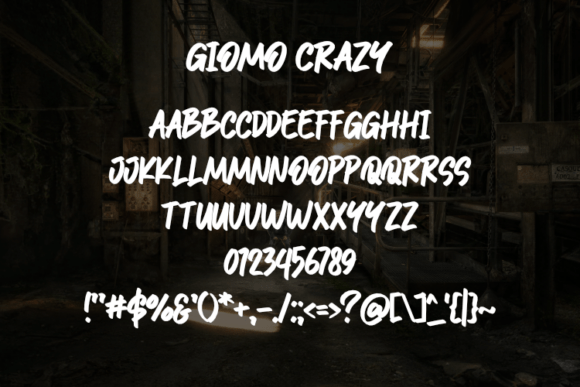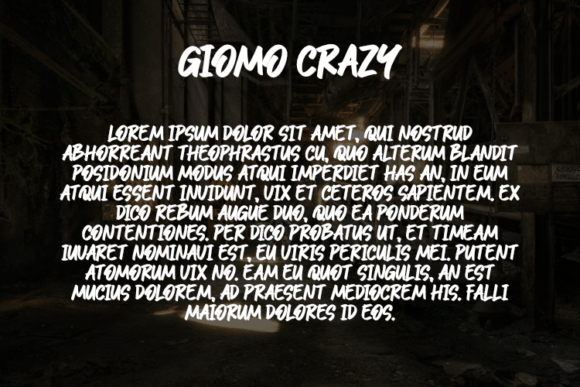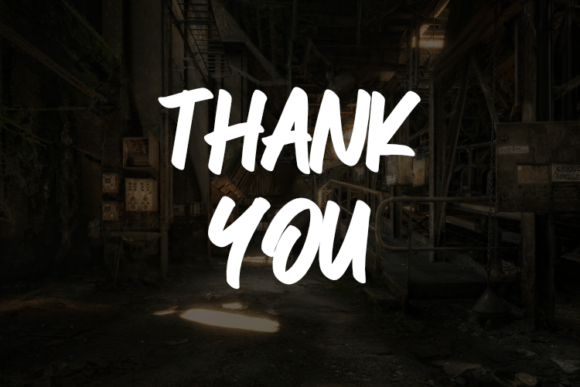
Unleash Your Creative Genius with GIOMO CRAZY Font
Are you a fashion-forward designer looking for a font that adds an edge to your designs? Look no further than the GIOMO CRAZY font, a versatile and quirky font created specifically with the designer in mind. This exciting font is perfect for apparel design, including t-shirts, sweatshirts, caps, and accessories, and is sure to give your designs a dynamic personality that captivates audiences.
The Perfect Font for Fashion-Forward Designers
The GIOMO CRAZY font is designed to help you unleash your creative genius and take your designs to the next level. Its unique and quirky charm makes it perfect for designers who want to add a touch of personality to their work. Whether you’re creating designs for apparel, accessories, or any other project, this font is sure to provide the perfect blend of style and creativity.
Perfect for Apparel Design
The GIOMO CRAZY font is particularly well-suited for apparel design. Its bold and dynamic personality makes it perfect for t-shirts, sweatshirts, caps, and accessories. With this font, you can create eye-catching designs that are sure to turn heads. Whether you’re designing for a client or creating your own products, the GIOMO CRAZY font is sure to provide the perfect touch of style and personality.
Key Features of GIOMO CRAZY Font
- Versatile and quirky design: The GIOMO CRAZY font features a unique and quirky design that’s perfect for adding a touch of personality to your work.
- Perfect for apparel design: The GIOMO CRAZY font is particularly well-suited for apparel design, including t-shirts, sweatshirts, caps, and accessories.
Tips for Using GIOMO CRAZY Font
Here are a few tips for getting the most out of the GIOMO CRAZY font:
- Experiment with different design combinations: Don’t be afraid to try out different design combinations to see what works best for your project.
- Use it for headlines and titles: The GIOMO CRAZY font is perfect for headlines and titles, where its bold and dynamic personality can really shine.
- Pair it with other fonts: Consider pairing the GIOMO CRAZY font with other fonts to create a unique and eye-catching design.
In conclusion, the GIOMO CRAZY font is a versatile and quirky font that’s perfect for fashion-forward designers looking to add an edge to their designs. With its compatibility with all software platforms, convenient otf file formatting, and endless design possibilities, this font is sure to provide the perfect tool for bringing your creative vision to life. So why wait? Embrace the quirky charm of GIOMO CRAZY and explore the infinite possibilities of design today!